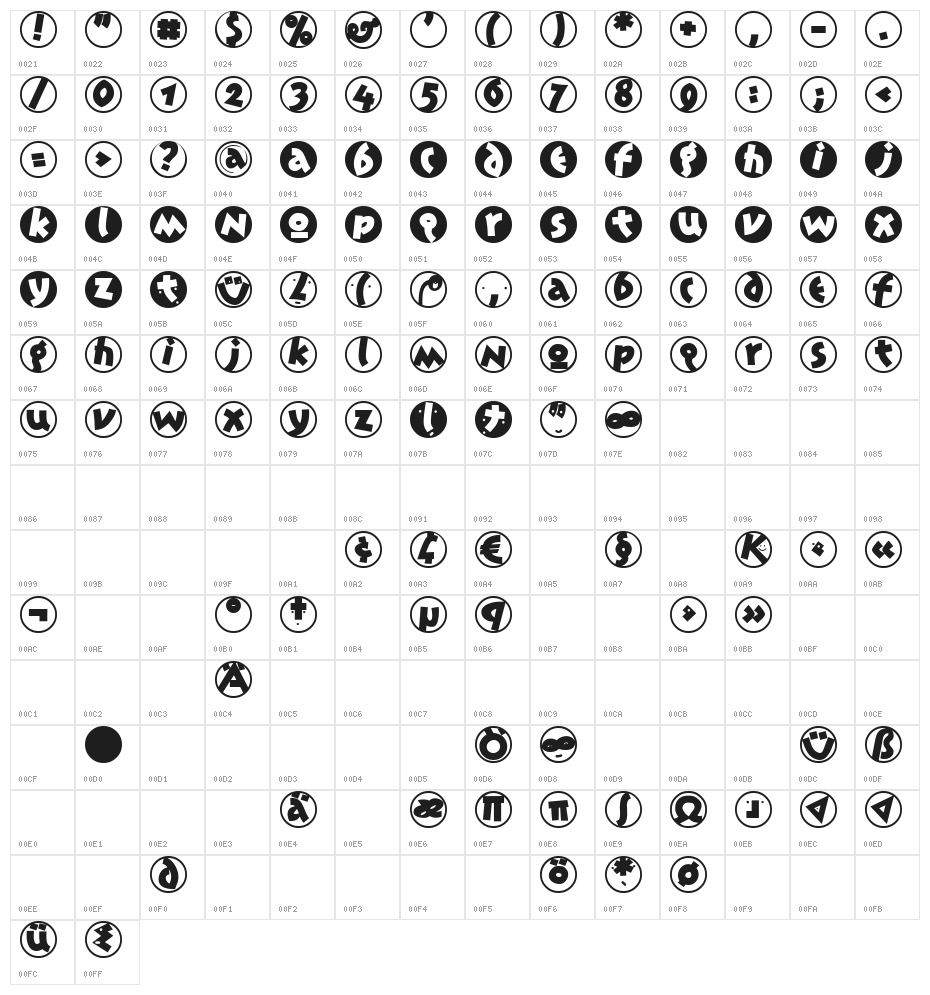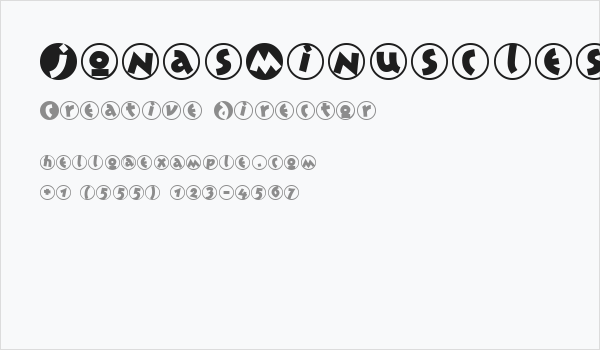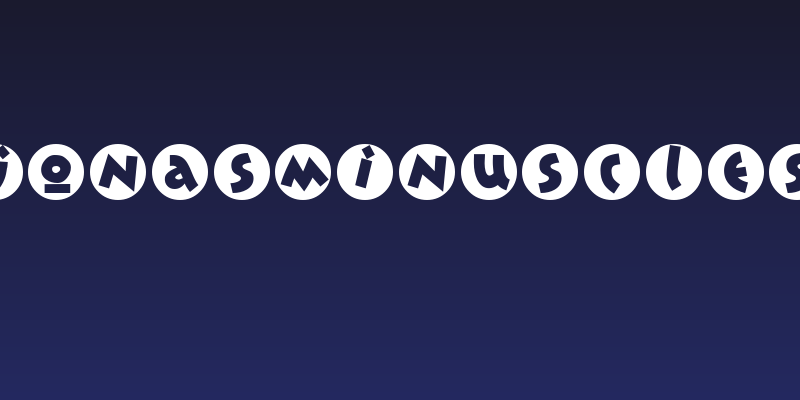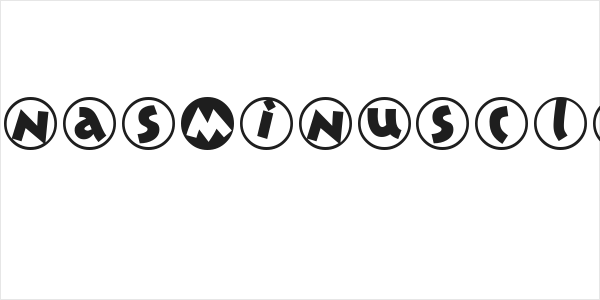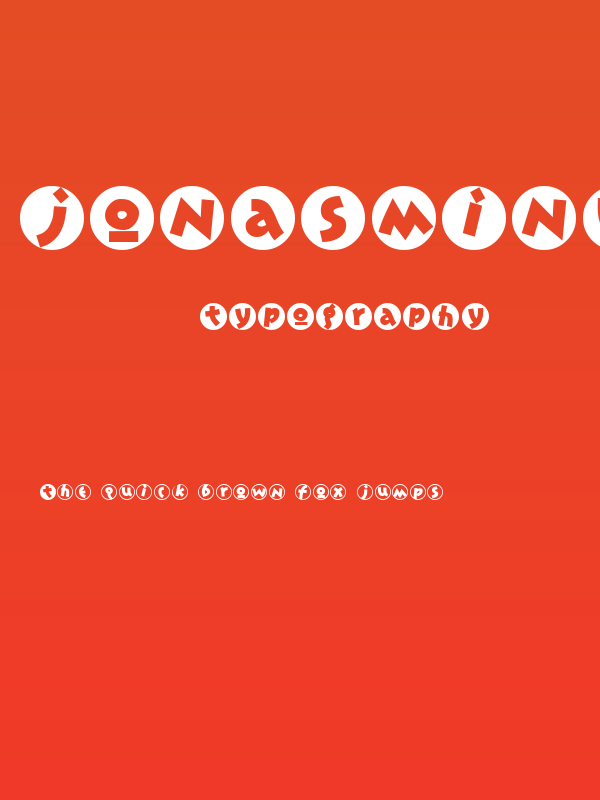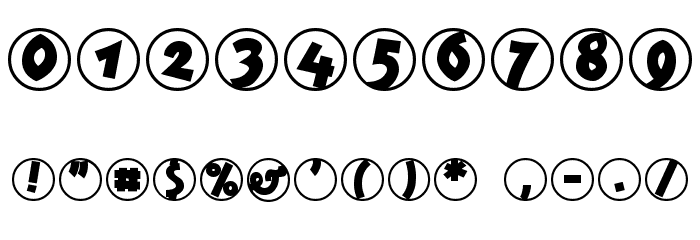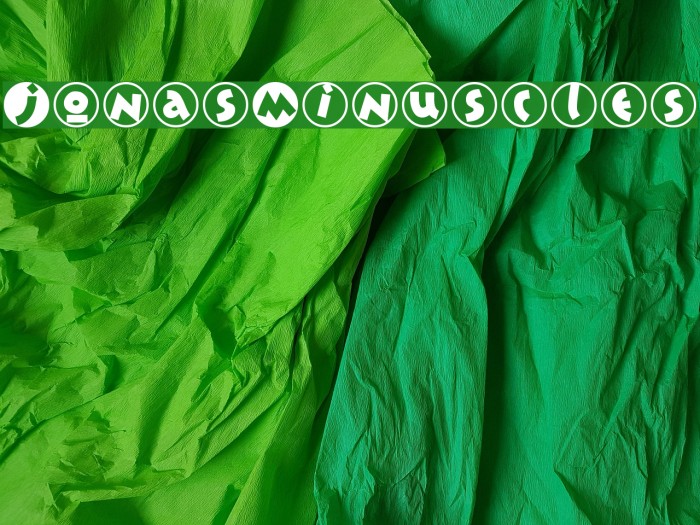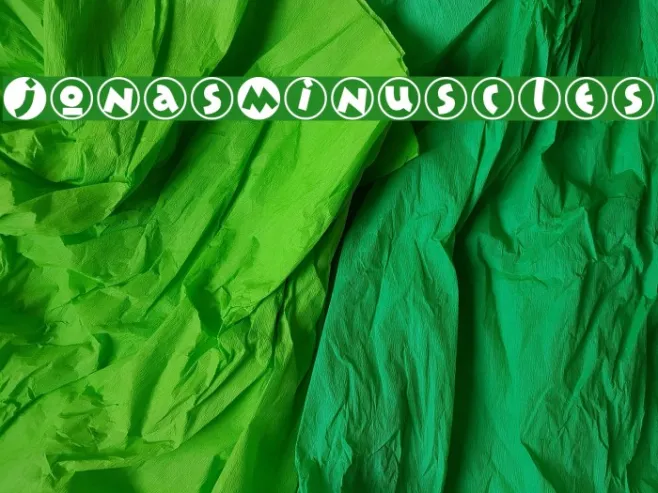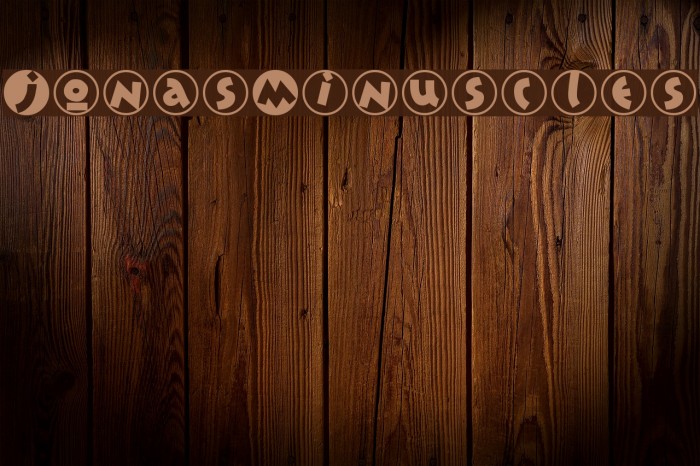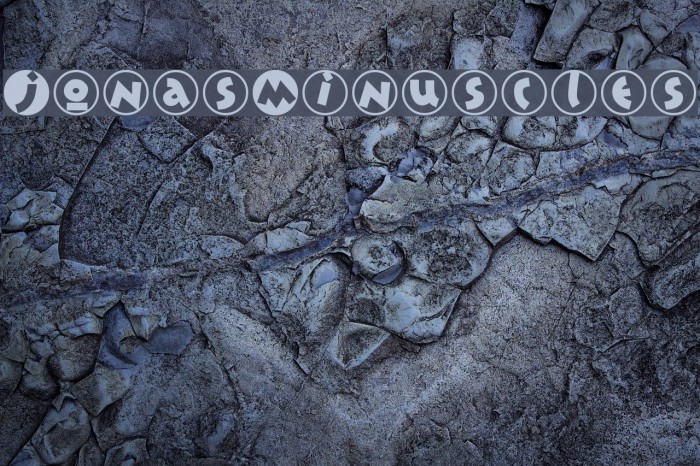
JonasMinuscles Font
JonasMinuscles Description
This font features a playful and bold design with each character enclosed in a solid circular background. The letters are stylized with unique, quirky shapes that give them a whimsical appearance. The contrast between the white letters and the black circles makes the characters stand out prominently. The font includes both uppercase and lowercase letters, numerals, and a variety of special characters. Its distinct style is eye-catching and unconventional, making it suitable for creative and informal projects.
| Proposed Projects | Ideal for children's book covers, playful branding, party invitations, and creative posters. |